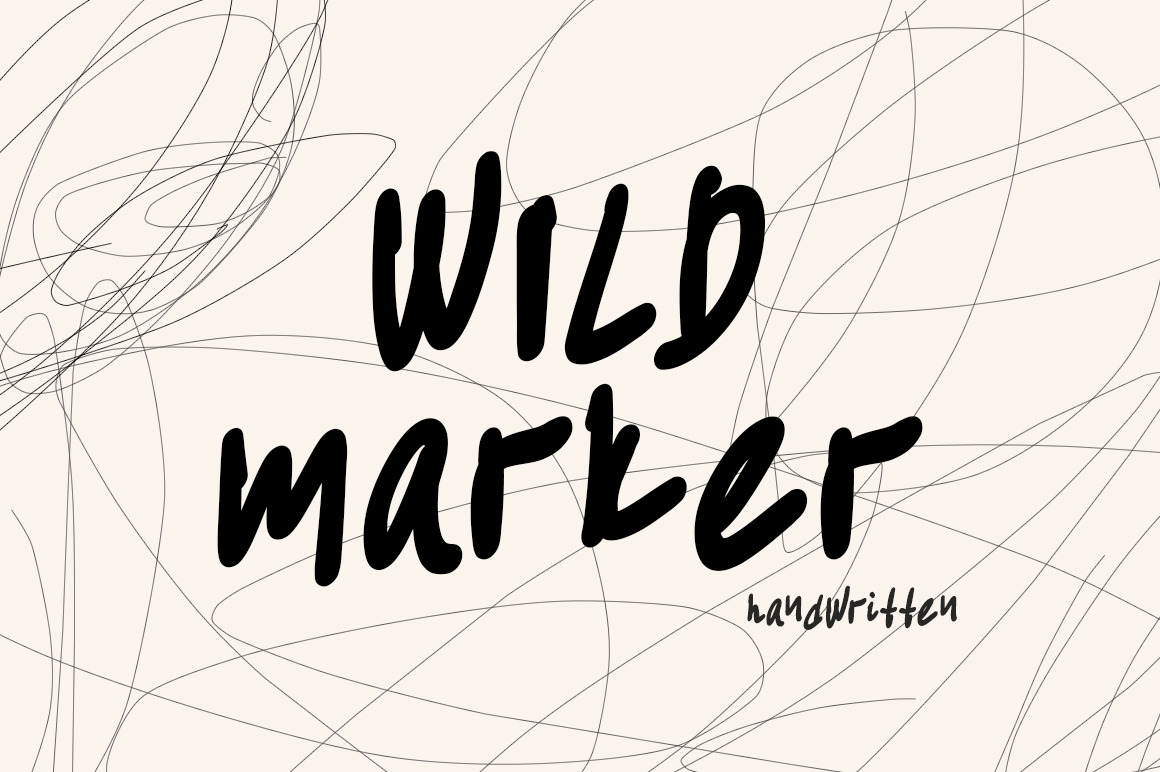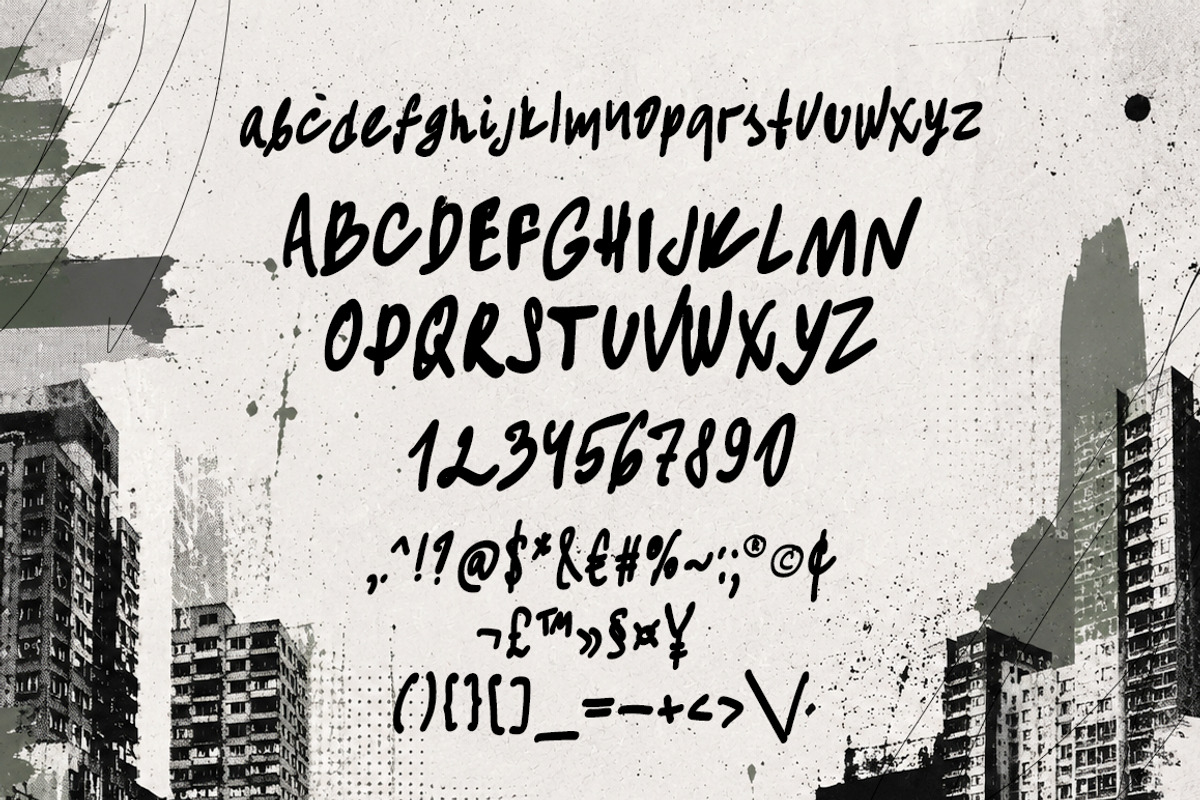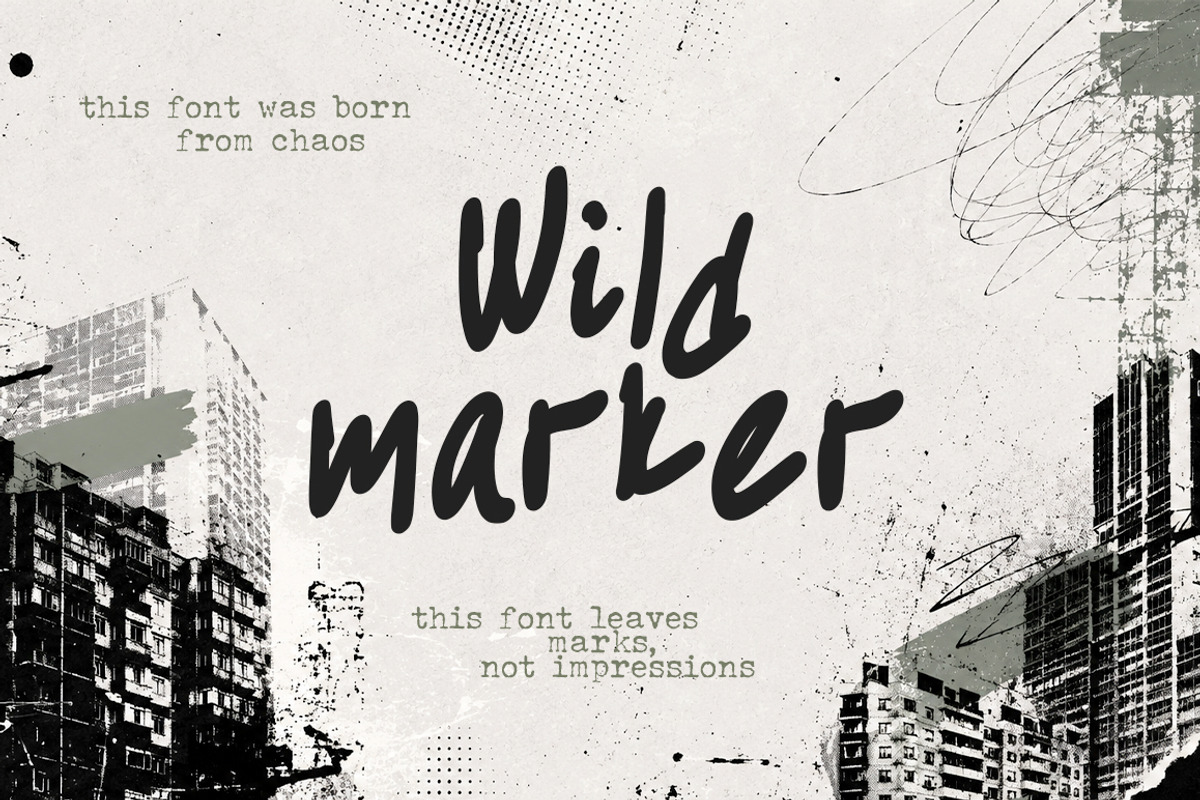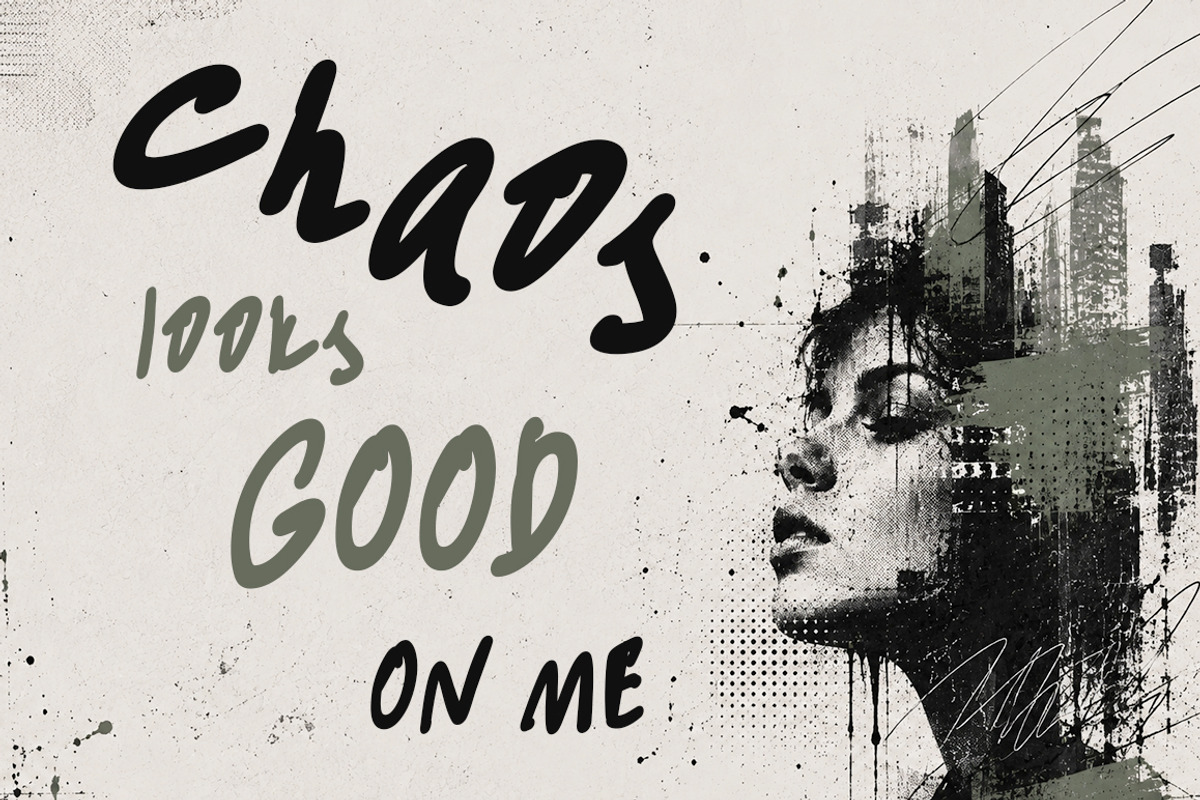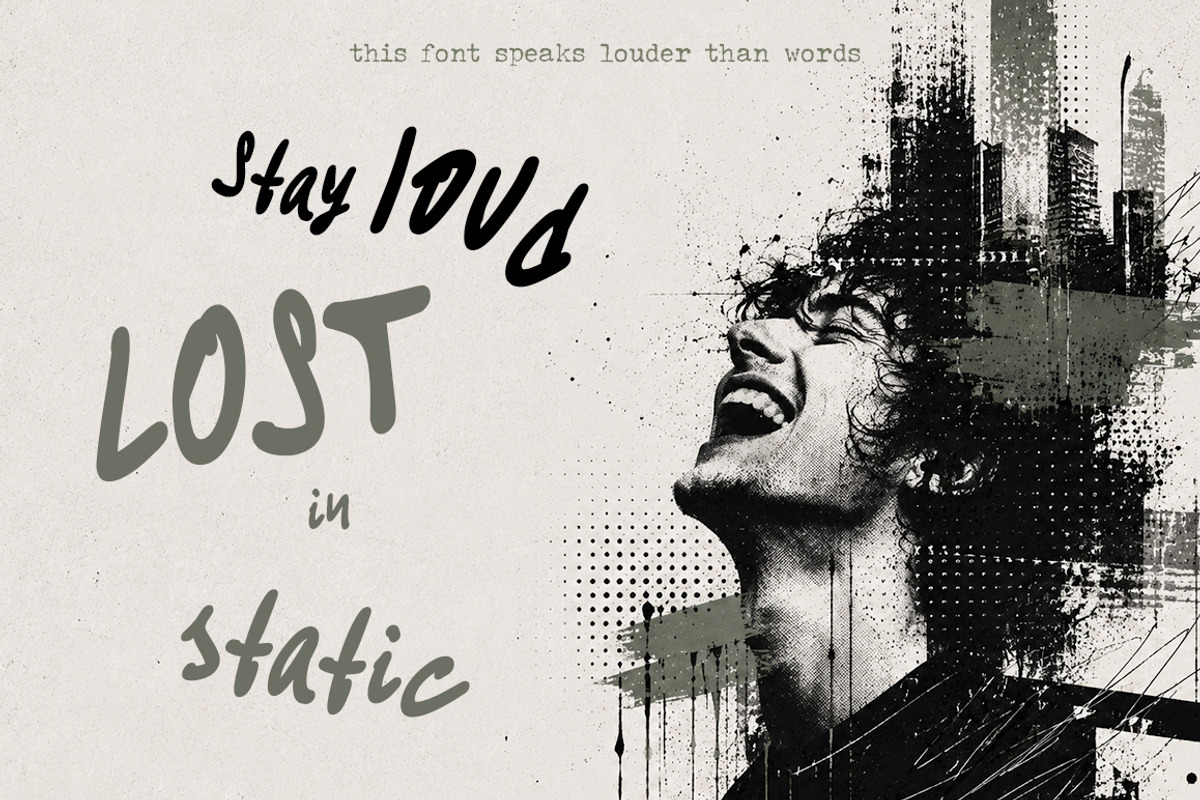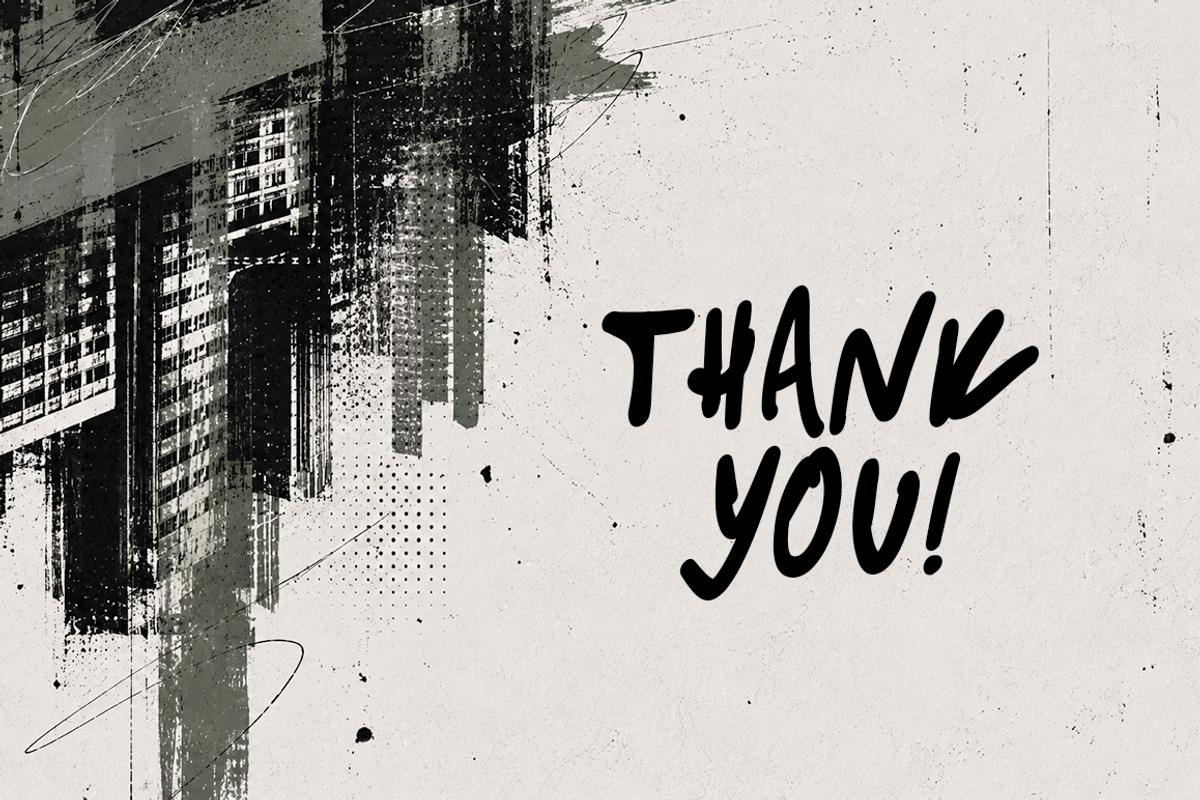
Wild marker handwritten font
Wild Marker is a raw handwritten font inspired by urban chaos, late-night city noise, underground posters, and emotional graffiti. Bold imperfect strokes, restless energy, and expressive shapes make this font feel alive — loud, messy, and impossible to ignore.
Designed to look spontaneous and emotional, Wild Marker works perfectly for streetwear branding, music covers, editorial layouts, posters, social media graphics, packaging, and rebellious visual identities.
This font doesn’t whisper — it screams. This font was born from chaos. Perfect for
Streetwear branding
Album covers
Urban posters
Editorial headlines
Fashion campaigns
YouTube thumbnails
Packaging design
Creative quotes
Underground aesthetics